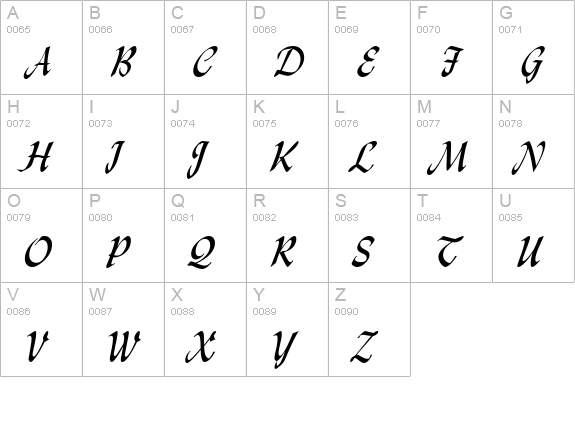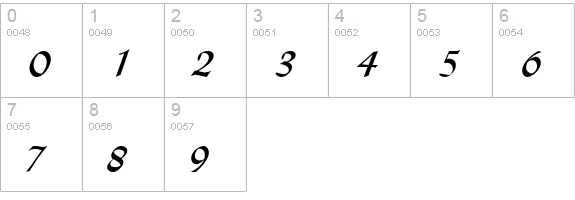
Lynda Cursive Normal is the standard, neutral variant in the Lynda typeface family \xE2\x80\x94 well suited to general body text, paragraphs, and standard typographic work.
Introducing Lynda Cursive Normal font, a beautifully crafted typeface that exudes elegance and sophistication. With its flowing curves and delicate strokes, this font is perfect for adding a touch of charm to any design project. Whether you're creating invitations, greeting cards, or branding materials, Lynda Cursive Normal font will make your text stand out with its graceful appearance. The best part? Lynda Cursive Normal font is completely free to download at FontsMarket.com. You can easily access this exquisite font and start using it in your projects without any cost. Don't miss out on the opportunity to enhance your designs with the timeless beauty of Lynda Cursive Normal font. Download it today and elevate your creations to the next level.